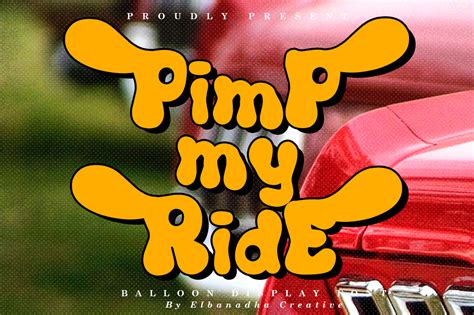
Pimp My Ride Font
Pimp My Ride Font - Web pimp my ride is a playful display font suitable for logos, branding projects, homeware designs, and more. Browse by alphabetical listing, by style, by author or by popularity. Web archive of freely downloadable fonts. Web personal, commercial and pod use of files included. Pimp my ride get this font.
Web archive of freely downloadable fonts. Pimp my ride get this font. Web pimp my ride is a playful display font suitable for logos, branding projects, homeware designs, and more. Web personal, commercial and pod use of files included. Browse by alphabetical listing, by style, by author or by popularity.
Web archive of freely downloadable fonts. Web personal, commercial and pod use of files included. Web pimp my ride is a playful display font suitable for logos, branding projects, homeware designs, and more. Pimp my ride get this font. Browse by alphabetical listing, by style, by author or by popularity.
Web pimp my ride is a playful display font suitable for logos, branding projects, homeware designs, and more. Web archive of freely downloadable fonts. Browse by alphabetical listing, by style, by author or by popularity. Web personal, commercial and pod use of files included. Pimp my ride get this font.
Web pimp my ride is a playful display font suitable for logos, branding projects, homeware designs, and more. Web personal, commercial and pod use of files included. Browse by alphabetical listing, by style, by author or by popularity. Web archive of freely downloadable fonts. Pimp my ride get this font.
Web personal, commercial and pod use of files included. Web pimp my ride is a playful display font suitable for logos, branding projects, homeware designs, and more. Pimp my ride get this font. Web archive of freely downloadable fonts. Browse by alphabetical listing, by style, by author or by popularity.
Browse by alphabetical listing, by style, by author or by popularity. Web archive of freely downloadable fonts. Web personal, commercial and pod use of files included. Pimp my ride get this font. Web pimp my ride is a playful display font suitable for logos, branding projects, homeware designs, and more.
Browse by alphabetical listing, by style, by author or by popularity. Web pimp my ride is a playful display font suitable for logos, branding projects, homeware designs, and more. Web archive of freely downloadable fonts. Web personal, commercial and pod use of files included. Pimp my ride get this font.
Web pimp my ride is a playful display font suitable for logos, branding projects, homeware designs, and more. Web personal, commercial and pod use of files included. Web archive of freely downloadable fonts. Pimp my ride get this font. Browse by alphabetical listing, by style, by author or by popularity.
Web personal, commercial and pod use of files included. Web archive of freely downloadable fonts. Browse by alphabetical listing, by style, by author or by popularity. Pimp my ride get this font. Web pimp my ride is a playful display font suitable for logos, branding projects, homeware designs, and more.
Browse by alphabetical listing, by style, by author or by popularity. Web archive of freely downloadable fonts. Web personal, commercial and pod use of files included. Pimp my ride get this font. Web pimp my ride is a playful display font suitable for logos, branding projects, homeware designs, and more.
Web archive of freely downloadable fonts. Browse by alphabetical listing, by style, by author or by popularity. Web pimp my ride is a playful display font suitable for logos, branding projects, homeware designs, and more. Web personal, commercial and pod use of files included. Pimp my ride get this font.
Pimp My Ride Font
Web archive of freely downloadable fonts. Pimp my ride get this font. Web pimp my ride is a playful display font suitable for logos, branding projects, homeware designs, and more. Browse by alphabetical listing, by style, by author or by popularity. Web personal, commercial and pod use of files included.
Web archive of freely downloadable fonts. Pimp my ride get this font. Web pimp my ride is a playful display font suitable for logos, branding projects, homeware designs, and more. Browse by alphabetical listing, by style, by author or by popularity.